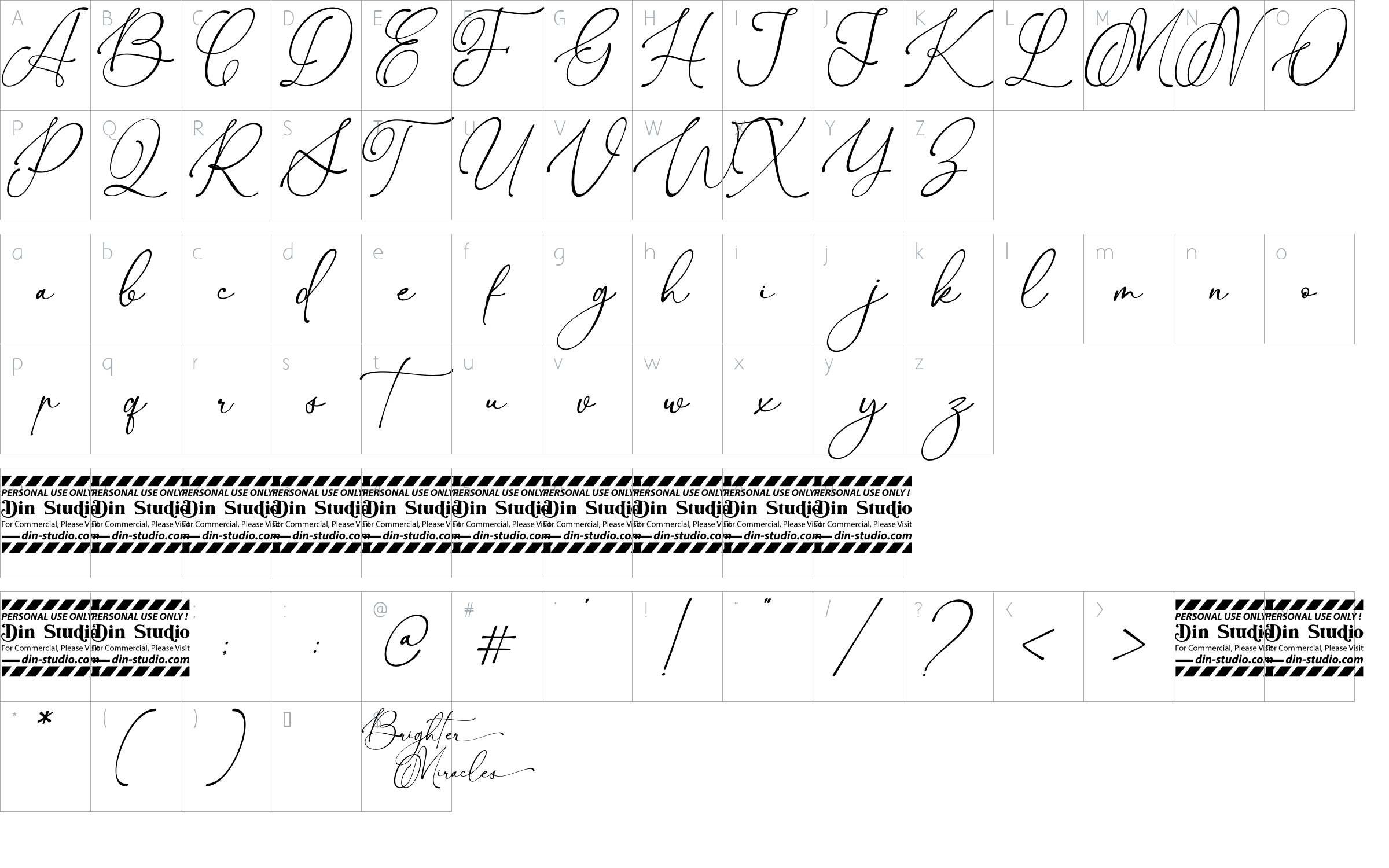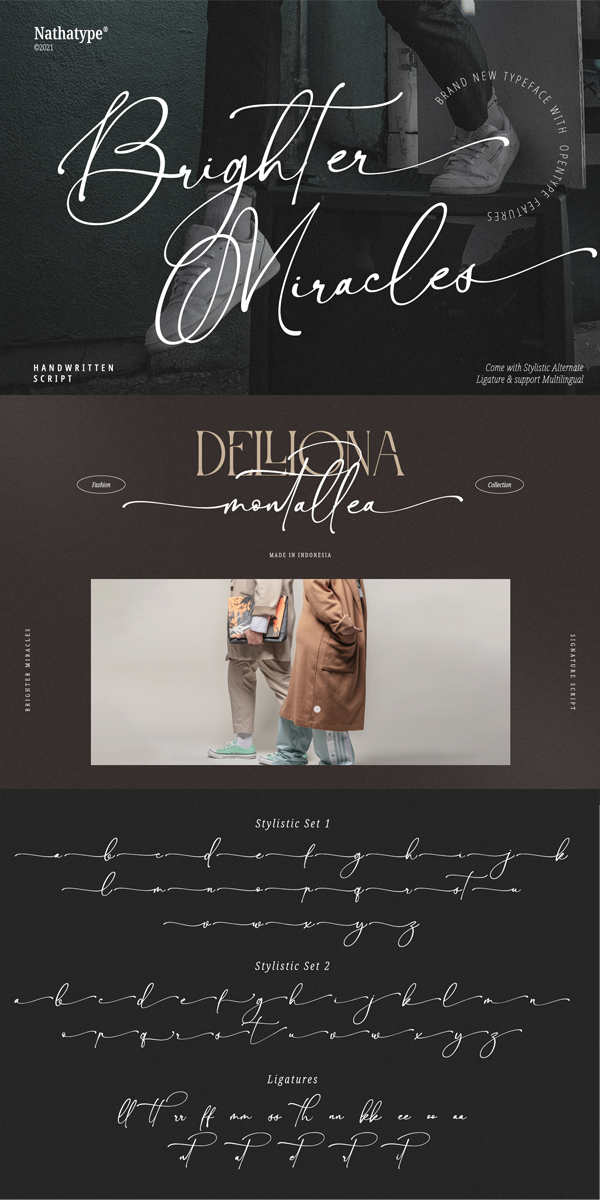
Brighter Miracles Font
About Brighter Miracles
Brighter Miracles is a handcrafted font designed to bring your branding to life and add a touch of elegance, modernity and style. It is perfect for social media branding projects, fashion designs, printed quotes, packaging, and a stylish text overlaying any background images.
Brighter Miracles font is created by Din Studio. Our font always includes Multilingual Support to make your branding reach a global audience. See the previews above to get to know how to use them.